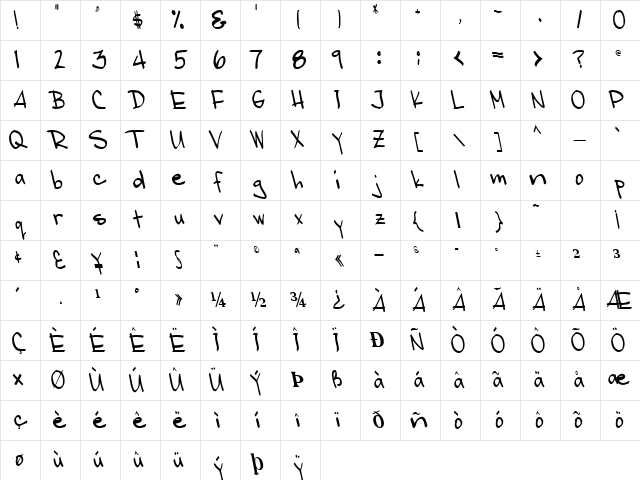
Pale Regular
Design Context for Pale
Pale is a composed and adaptable typeface that performs quietly and consistently across a wide range of design contexts.